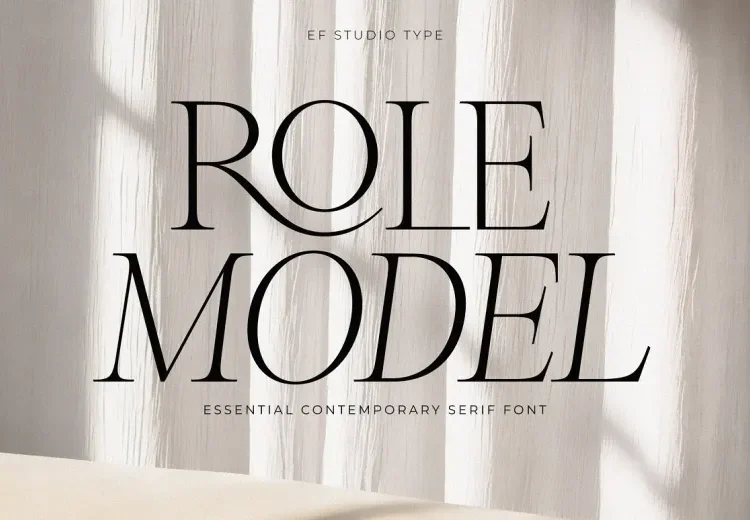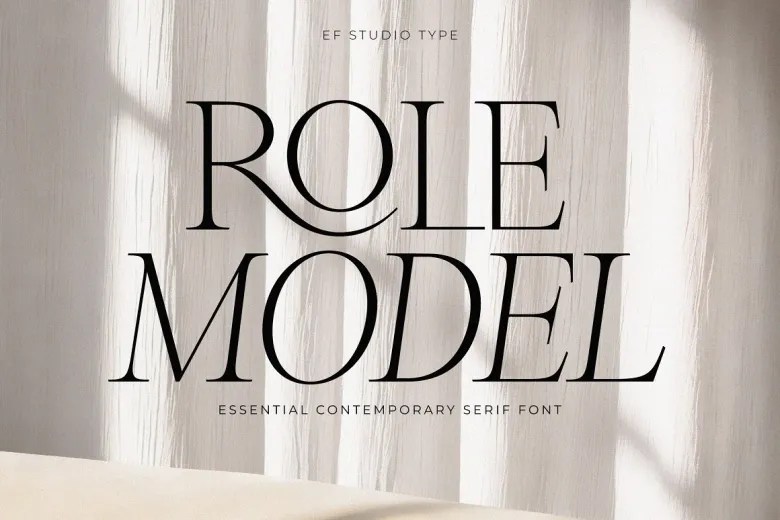
Role Model Font
Role Model is a classic modern serif typeface that balances timeless elegance with a contemporary touch. Featuring smooth edges, it offers a sleek, up-to-date aesthetic suitable for a wide range of design needs.
Designed with versatility in mind, Role Model integrates seamlessly into various design software, making it ideal for both digital and print applications. Whether you’re working on websites, branding, or printed materials, this font is flexible enough to handle diverse tasks across platforms.
This font is particularly well-suited for body text, headings, and large displays, thanks to its clean lines and sophisticated design. It includes a variety of ligatures and offers both Regular and Oblique styles, giving you flexibility to create modern, polished layouts.